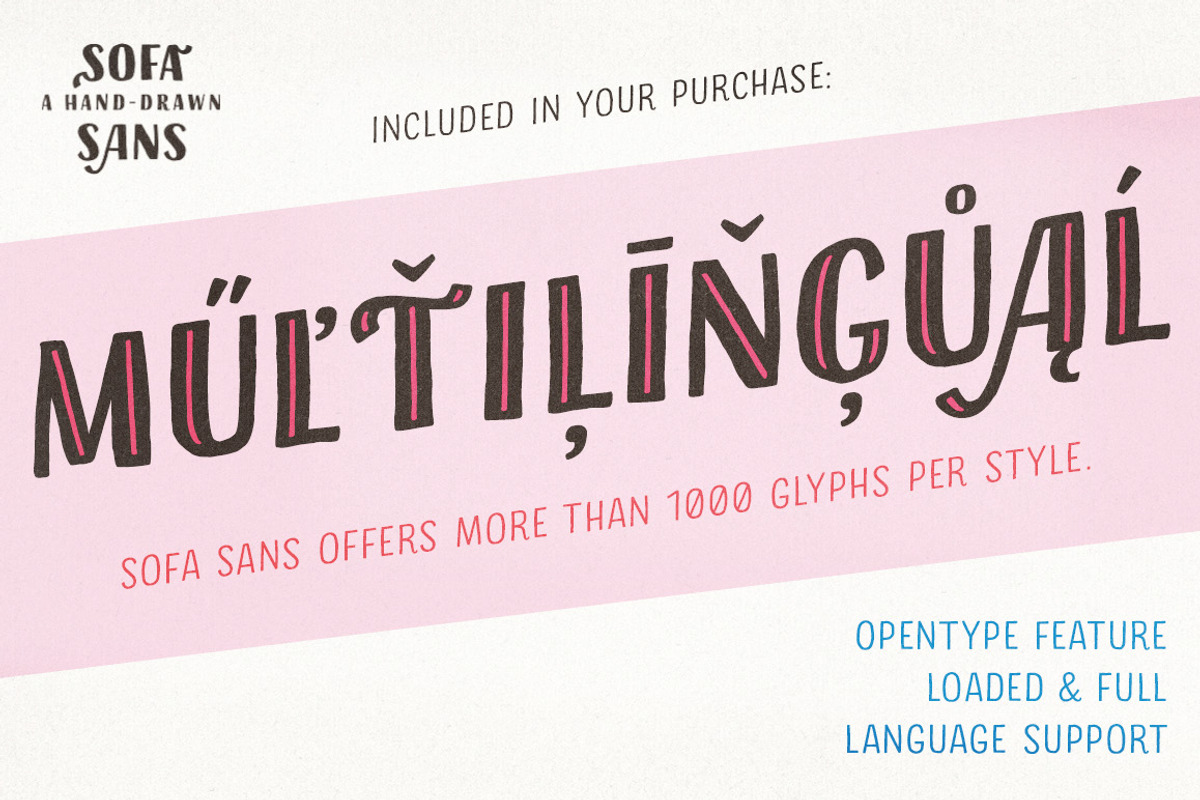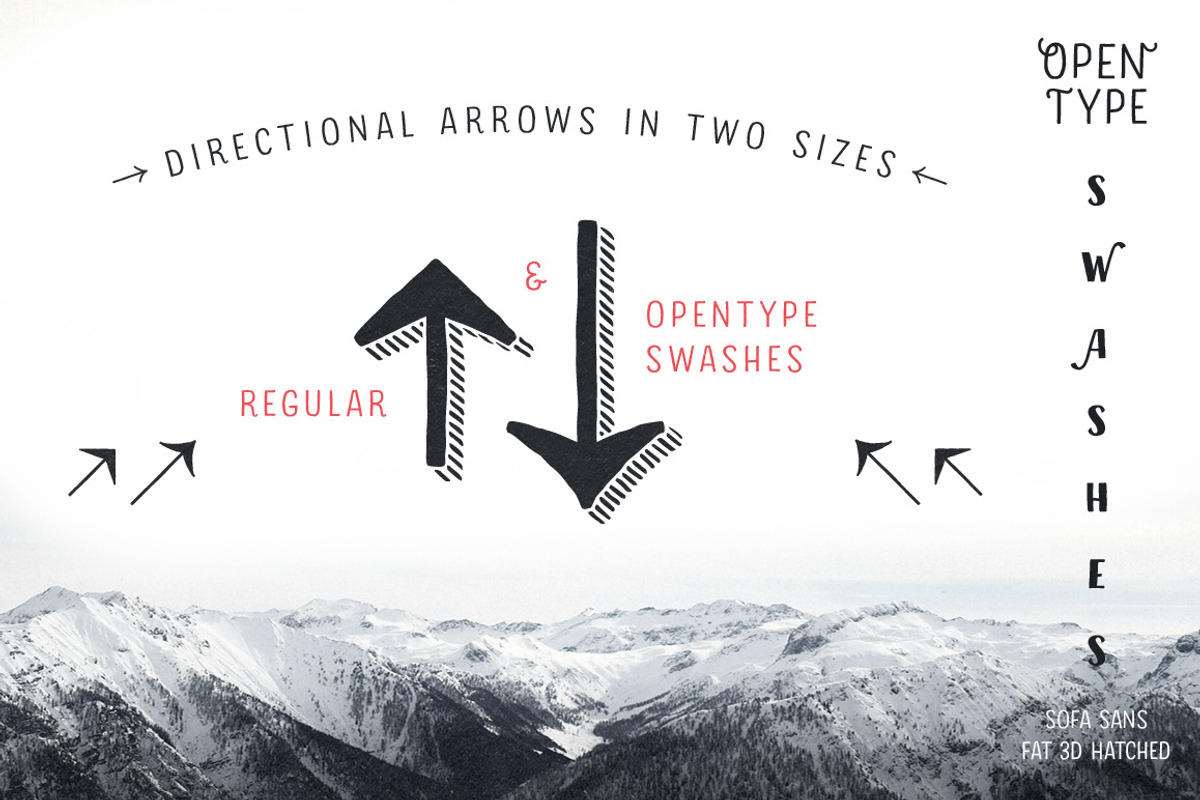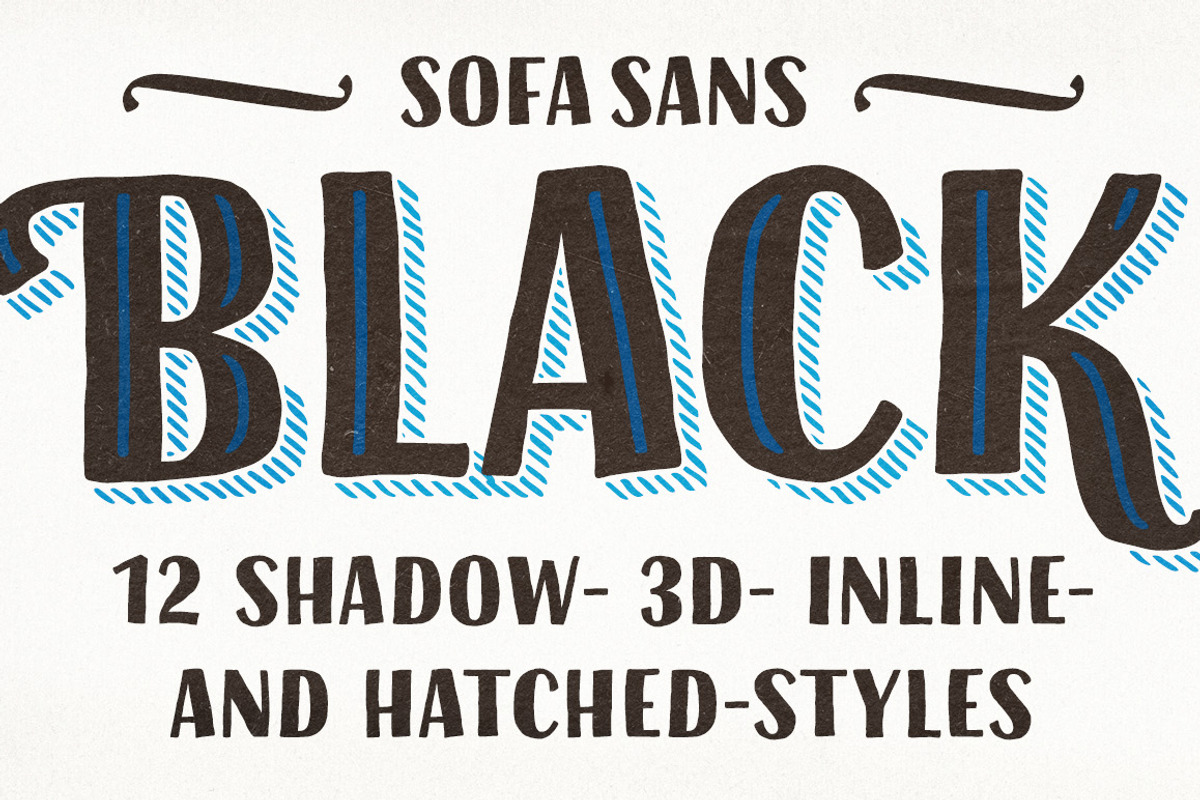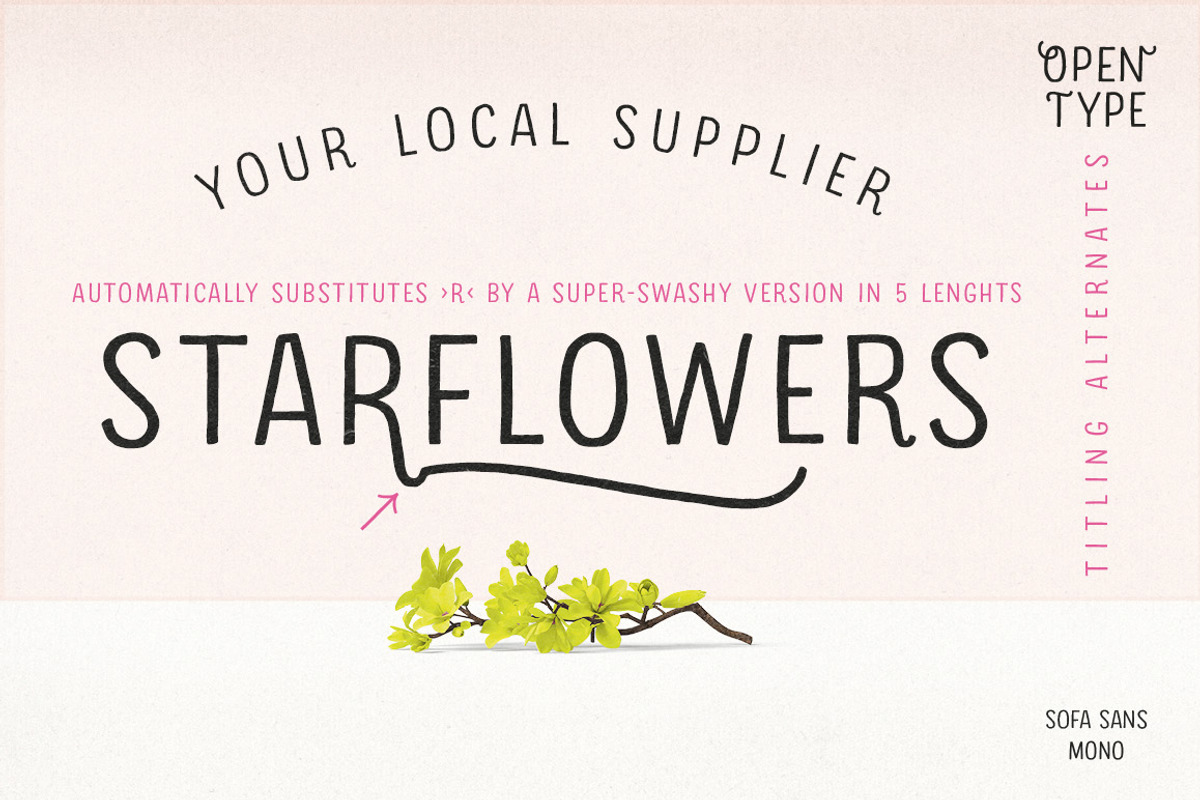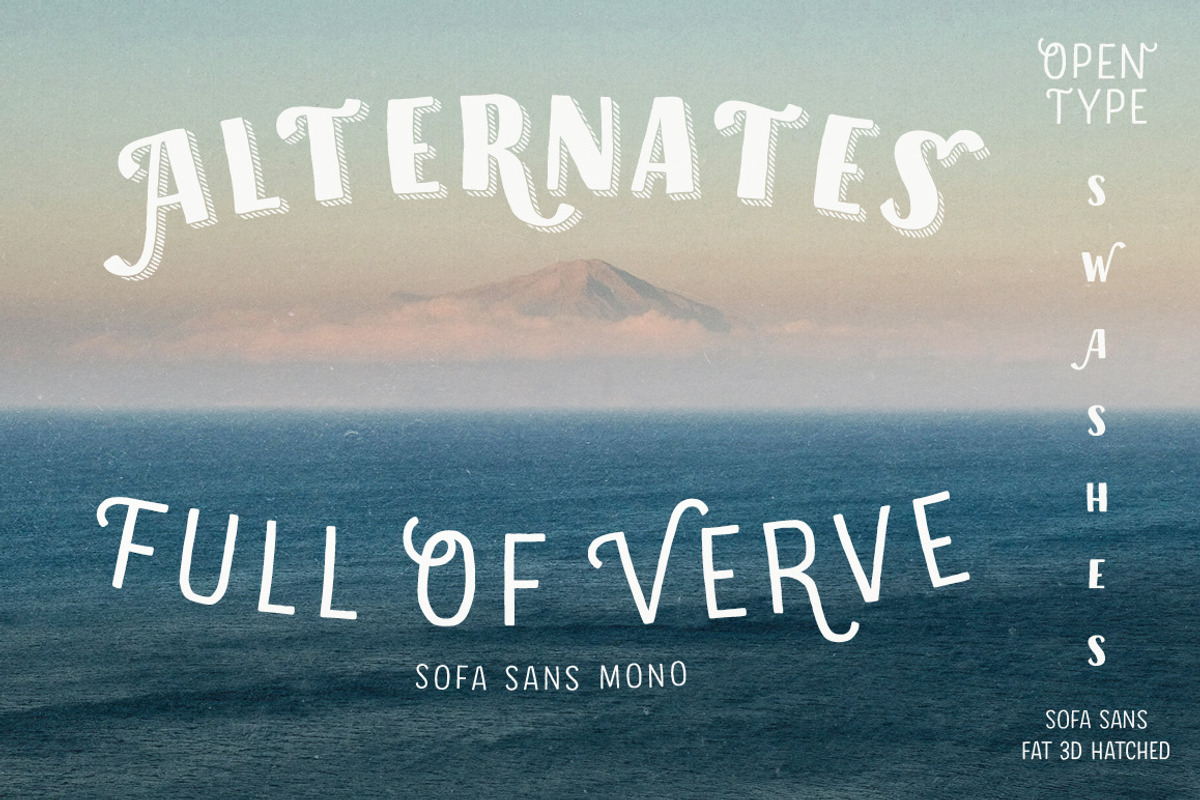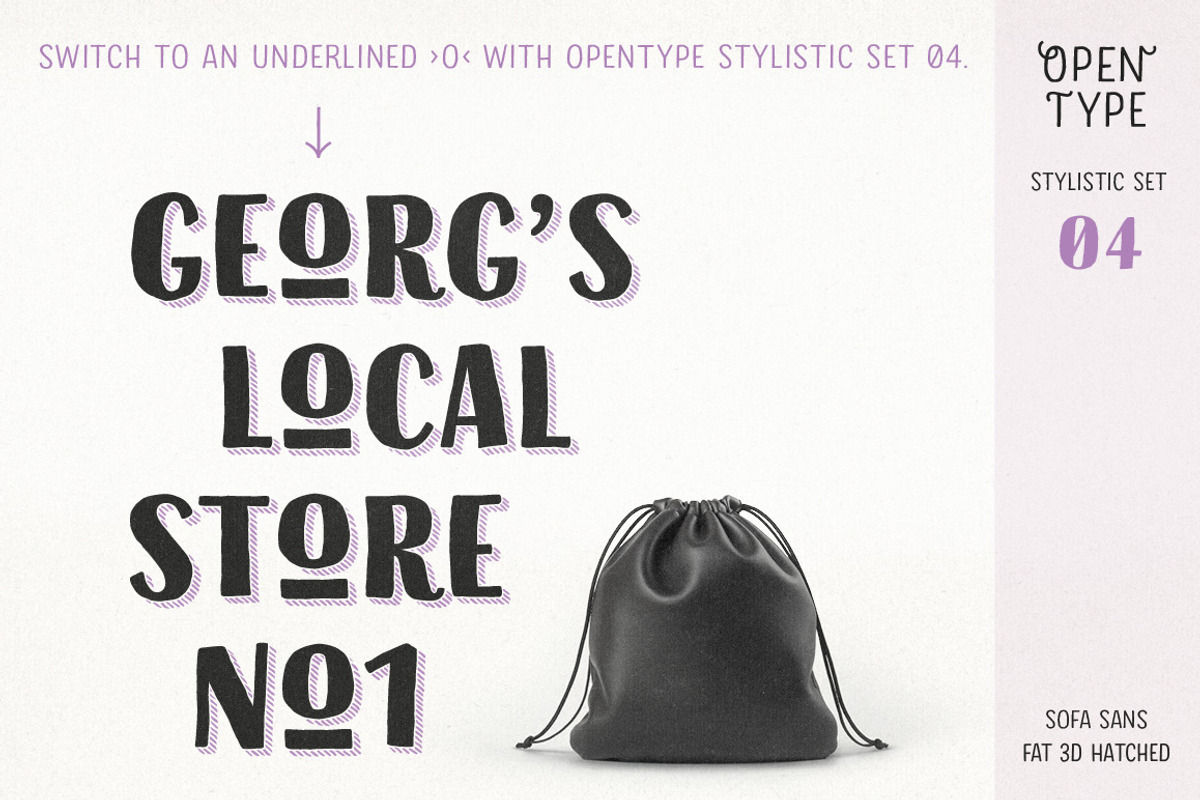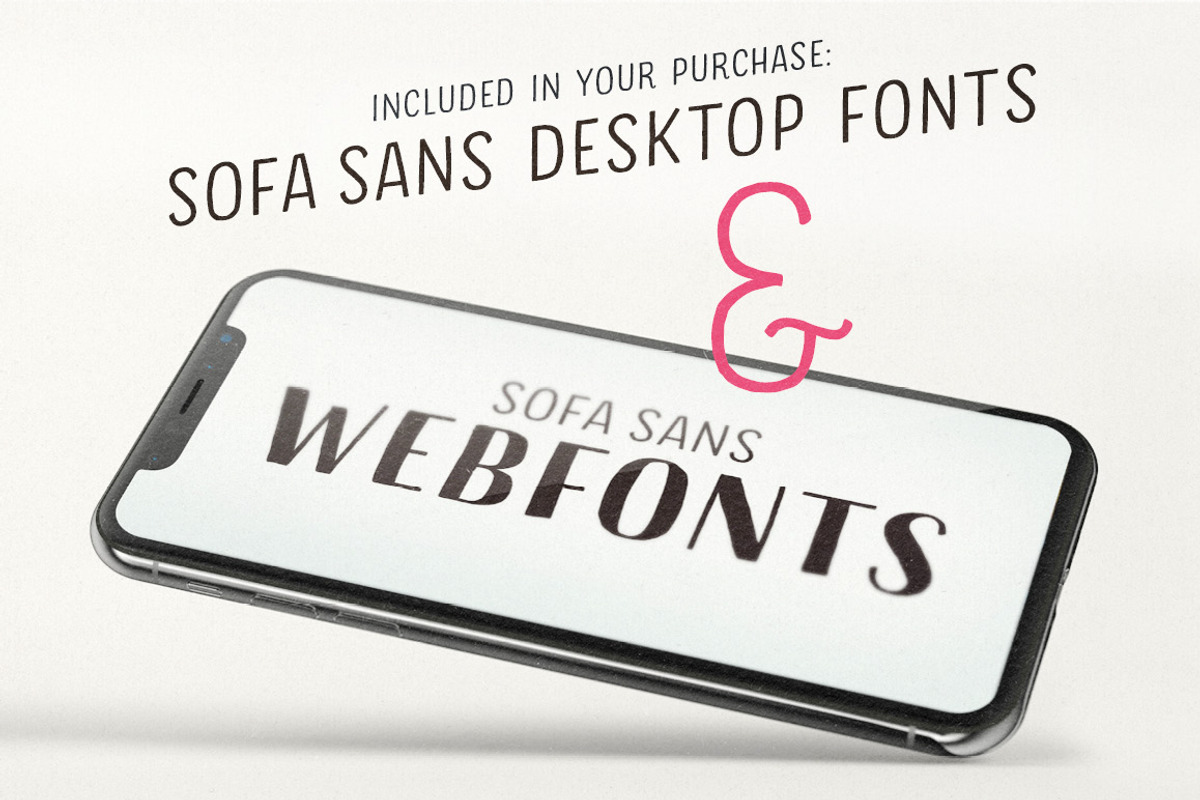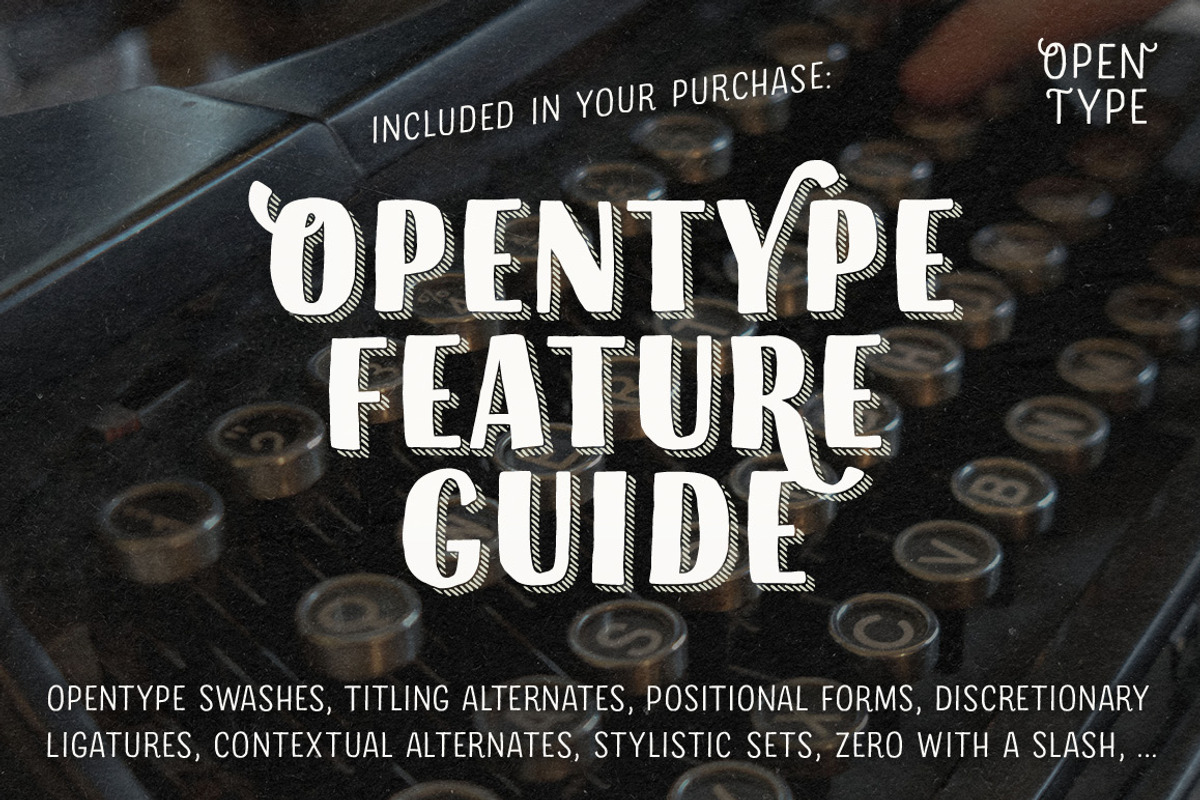
Pack of 12 Hand drawn Black Fonts
12 Hand drawn Black Sans Serif Fonts for Desktop and Web:
1000+ glyphs per font
Why Pack of 12 Hand drawn Black Fonts is worth a look
Pack of 12 Hand drawn Black Fonts by Georg Herold-Wildfellner fits naturally into Branding, posters, packaging, typography.